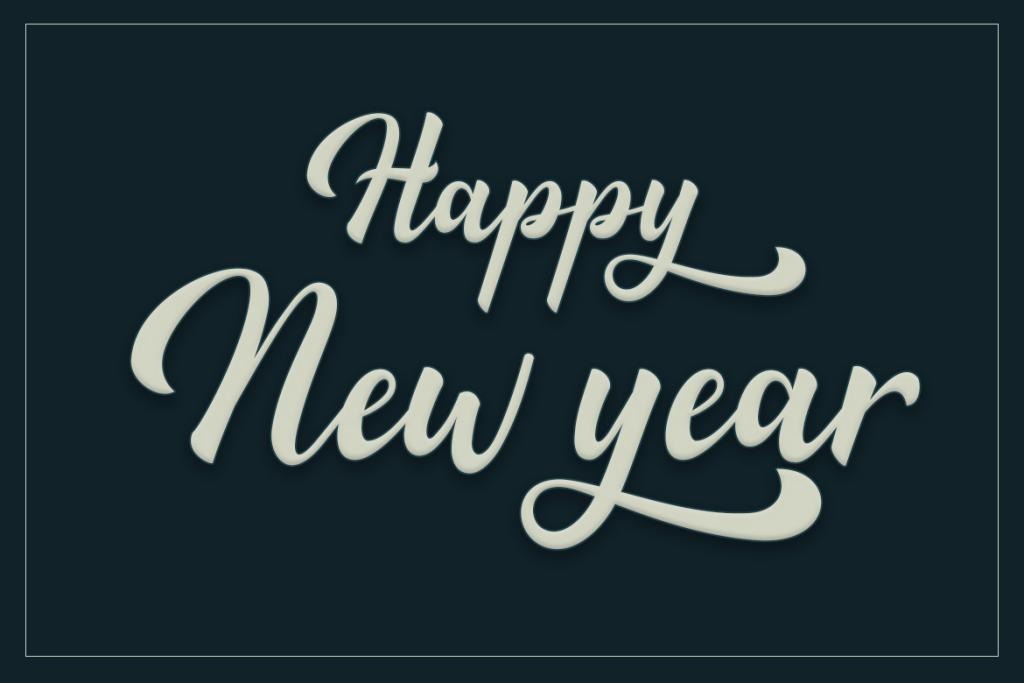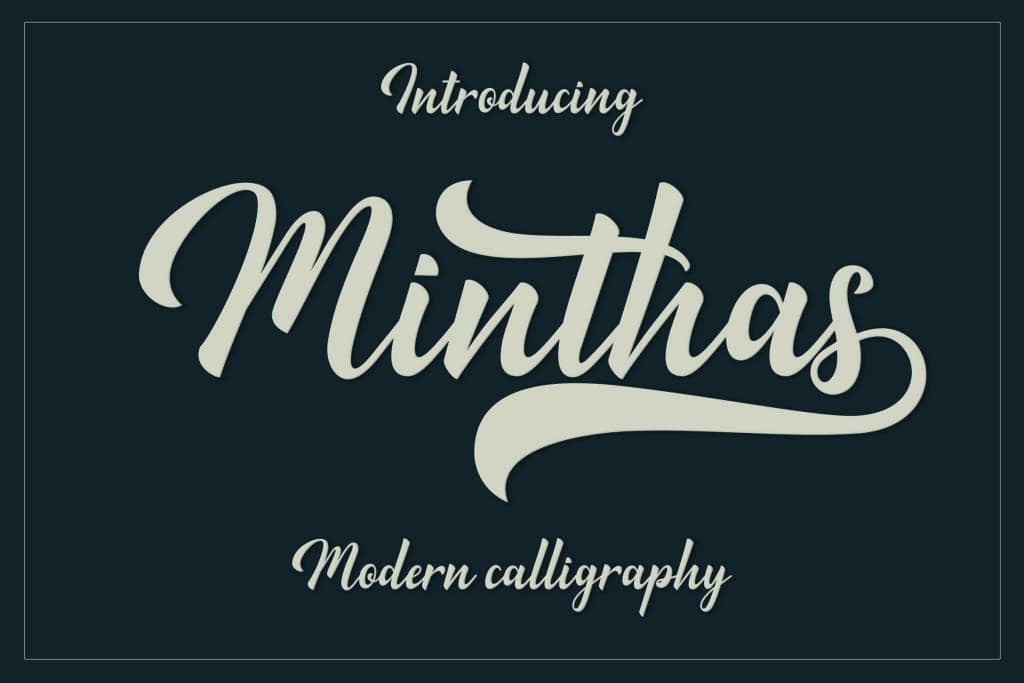
Minthas Font
Minthas Calligraphy Font
It’s a lovely and delicate script typeface that exudes elegance and class. This font was particularly crafted for those who need a beautiful and refreshing look to their designs. It looks stunning on wedding invitations, thank you cards, quotes, greeting cards, logos, business cards, and every other design which needs a handwritten touch.